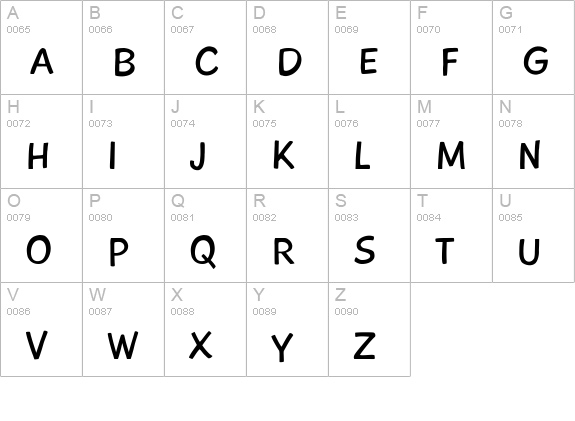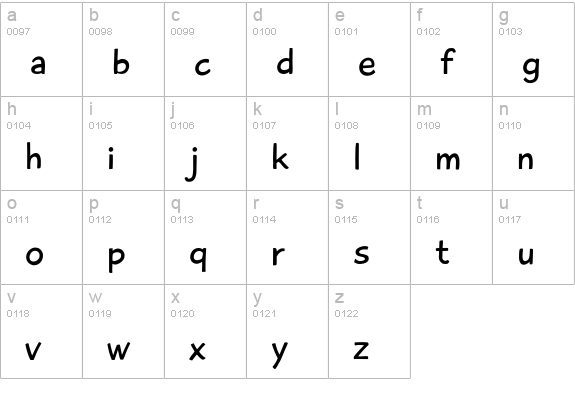
Playtime With Hot Toddies Font Details
Playtime With Hot Toddies font is a playful and whimsical typeface that is perfect for adding a touch of fun to your designs. With its quirky and charming style, this font is sure to catch the eye and bring a sense of cheerful energy to any project. Whether you're creating greeting cards, party invitations, or social media graphics, Playtime With Hot Toddies font is a versatile choice that will add a unique and festive flair to your work. Best of all, Playtime With Hot Toddies font is available for free download at FontsMarket.com. This means that you can easily access this delightful font and start using it in your projects right away, without any cost or hassle. So go ahead and infuse your designs with a sense of playfulness and joy by incorporating Playtime With Hot Toddies font today!